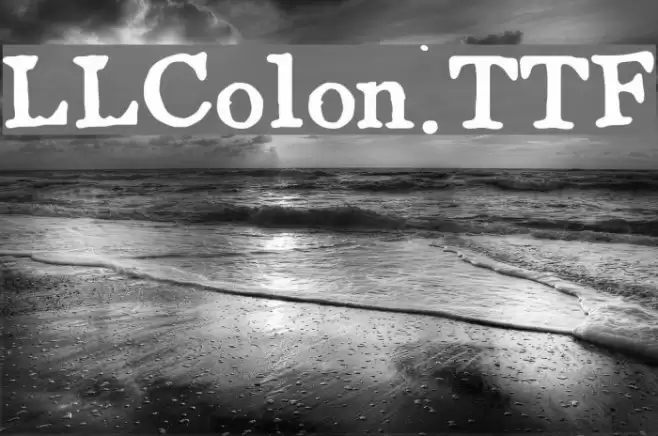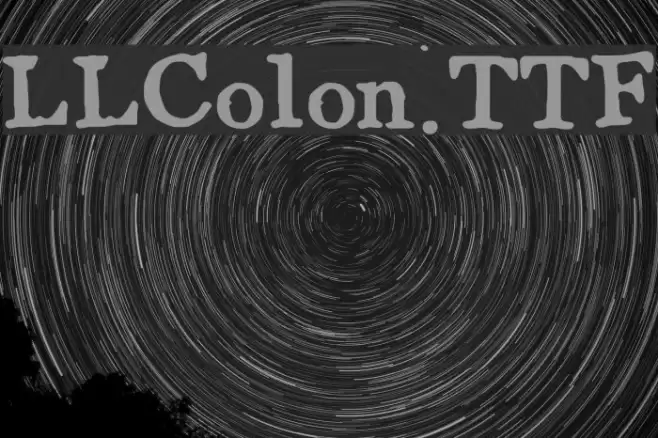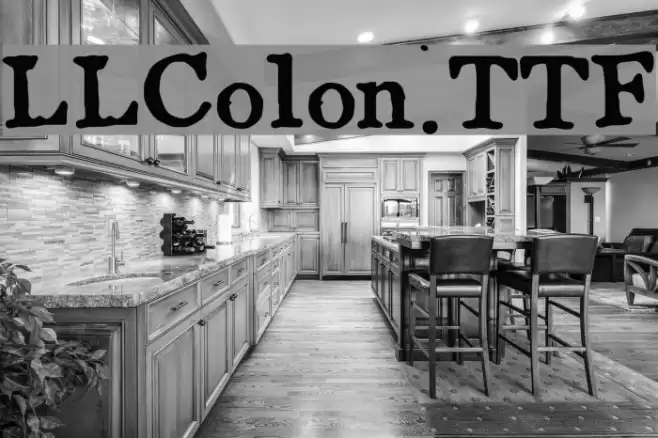
LLColon.TTF Font
LLColon.TTF Description
This font exhibits a classic serif style with a slightly distressed appearance, giving it a vintage and handcrafted feel. The characters are bold and have a strong presence, with thick strokes and pronounced serifs that add to its traditional look. The uppercase and lowercase letters maintain a consistent style, with rounded edges and a slightly uneven texture that suggests a hand-drawn quality. The numerals are similarly styled, with a bold and sturdy appearance. Special characters are included, maintaining the same stylistic features, making this font versatile for various design needs.
A bold, vintage serif font with a handcrafted, distressed appearance from Distorted Eroded fonts.
- Proposed Projects: Ideal for projects that require a vintage or handcrafted aesthetic, such as posters, branding for artisanal products, book covers, and retro-themed designs.
- Overall Style: Vintage